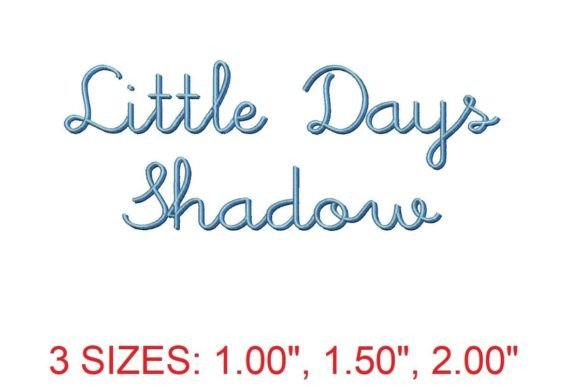
Little Days Shadow Font: A Guide to Creative Expression and Practical Use
The Little Days Shadow Font is a unique and enchanting typeface that brings a whimsical charm to any project. Whether you're personalizing clothing, accessories, or home decor, this font offers limitless creative possibilities. Its delicate shadow effect adds depth and character, making it ideal for those who want to elevate their craft with a touch of magic.
Understanding the Little Days Shadow Font
The Little Days Shadow Font is designed with precision and care, offering a blend of elegance and playfulness. It features a distinct shadow effect that enhances readability while maintaining a soft, dreamy aesthetic. This font is particularly popular among creators who enjoy adding a personal touch to their handmade items or digital content.
One of the key advantages of this font is its versatility. It can be used in a variety of applications, from embroidery designs to digital signage. However, understanding its capabilities and limitations is essential to achieving the best results.
Common Mistakes When Using Little Days Shadow Font
Many users overlook important details when selecting and using the Little Days Shadow Font. One common mistake is assuming that all characters will render the same way across different sizes and machines. In reality, the font’s dimensions and stitch counts vary depending on the letter, especially for uppercase "A" and lowercase "a".
To avoid these pitfalls, it's important to approach the Little Days Shadow Font with a clear plan and attention to detail. Here are some practical tips to help you make the most of this beautiful font:
By taking these steps, you can significantly improve the quality and consistency of your final projects. The Little Days Shadow Font is a powerful tool, but like any creative resource, it requires thoughtful application to achieve the best results.
The Little Days Shadow Font is a wonderful choice for anyone looking to add a touch of whimsy and creativity to their projects. By avoiding common mistakes and following practical guidelines, you can unlock its full potential and create stunning, personalized designs. Whether you're a hobbyist or a professional, this font offers endless opportunities for artistic expression.